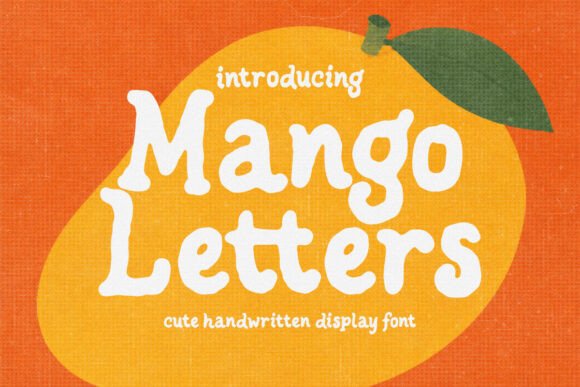
Mango Letters: A Designer’s Real-World Review
First Impressions: Warm, Confident, Unhurried
Opening Mango Letters feels like stepping into a sunlit studio—no sharp edges, no forced energy. It’s a display font with quiet authority: rounded terminals, generous x-height, and subtle contrast that reads as friendly but never childish. The lowercase ‘a’ and ‘g’ have gentle open forms; the uppercase ‘M’ and ‘R’ carry just enough structure to anchor a logo without stiffness. This isn’t a font shouting for attention—it’s leaning in, making eye contact. It leans modern typography toward approachability, not trend-chasing.
Where It Lives Best (and Where It Doesn’t)
Mango Letters thrives where warmth and clarity intersect: artisanal food packaging, boutique skincare labels, indie book covers, wedding invitations, and small-business website headers. I’ve used it for a ceramicist’s logo—paired with a crisp sans serif for body text—and it held its own without competing. It works beautifully on matte-finish product tags and Instagram quote graphics, especially when set large with generous letter spacing.
It does not scale down gracefully. Below 24pt, the soft curves start to blur; at 14pt in body copy? Forget it. Mango Letters is not a workhorse—it’s a spotlight. Use it for short phrases only: brand names, taglines, chapter titles, pull quotes, social post headlines. Never for paragraph text, navigation menus, or data-heavy infographics. As a display font, its job is resonance—not utility.
Real Projects, Real Results
- Logo design: Strong as a primary mark—especially for lifestyle, wellness, food, or creative services brands. Avoid overcomplicating it with heavy shadows or gradients; let its shape breathe.
- Packaging design: Printed on kraft paper or soft-touch laminates, Mango Letters feels premium and tactile. Tested on a candle label: legible at 32mm width, warm under natural light, and distinct from generic script fonts.
- Social media graphics: Performs exceptionally well in vertical Reels thumbnails and Pinterest pins—its rhythm guides the eye without visual fatigue. Paired with a neutral sans serif caption, it boosts engagement by reinforcing tone before a single word is read.
- Printable design: Works cleanly in PDFs and print-on-demand formats—no hint of pixelation even at 300dpi. Used successfully in a downloadable planner cover and Cricut-ready SVG files (with proper vector export).
- Digital product assets: Included in Canva templates I built for coaches—clients consistently report higher click-through on headers using Mango Letters versus default display options.
What It Does to Your Design Thinking
Mango Letters subtly shifts hierarchy. Because it carries so much personality, it asks you to simplify everything around it. That means tighter margins, more whitespace, bolder color restraint. I noticed my clients started trusting the brand faster—not because the font is “pretty,” but because its consistency across touchpoints (website header → email banner → product sticker) created subconscious cohesion. It doesn’t scream professionalism; it embodies it through restraint and intentionality.
That said, it can undermine credibility if misapplied. Slapping Mango Letters onto a fintech dashboard or legal firm brochure creates dissonance—not charm. Its mood is inherently human-scale, optimistic, grounded. It assumes your audience values authenticity over authority. If your brand voice is clinical, urgent, or ultra-minimalist, this isn’t your font.
Font Pairing: Less Is More
Mango Letters pairs best with typefaces that don’t echo its warmth—so avoid stacking it with other handwritten or script fonts. Instead, try:
- A sturdy, neutral sans serif (like Inter or Poppins) for body text and UI labels—creates clean contrast without competition.
- A low-contrast serif (such as Lora or Cormorant Garamond) for editorial design—adds quiet sophistication while letting Mango Letters shine as a headline anchor.
- A monospaced sans (like JetBrains Mono) for tech-forward accents—surprising but effective in digital product interfaces where playfulness meets precision.
Avoid pairing it with decorative display fonts or overly geometric sans serifs—they either clash tonally or drown out its subtlety. And never pair it with another display font unless you’re intentionally building high-contrast visual tension (e.g., bold poster series). Even then, test at actual size.
Designer Notes You’ll Actually Use
- Test in black and white first. Mango Letters relies on form, not color—so if it reads weakly in grayscale, it’ll falter in real production.
- Check small-size readability on physical mockups. I printed a 16pt version on a coffee sleeve—barely legible. Save it for 28pt and up in print, 48px and up on screen.
- Compare uppercase vs. lowercase treatment. The caps are slightly heavier and more commanding—great for logos. The lowercase flows better in short phrases like “hand-poured” or “small batch.”
Mango Letters isn’t versatile—but it doesn’t need to be. Its value lies in specificity: it solves one problem beautifully—how to communicate sincerity, craft, and calm in a single glance. It won’t fix weak messaging or poor layout. But in the right hands, on the right project, it deepens connection. I reach for it when the brief says “feel like home,” not “look expensive.” When the goal is recognition rooted in feeling—not flash. That’s not a limitation. That’s design judgment.